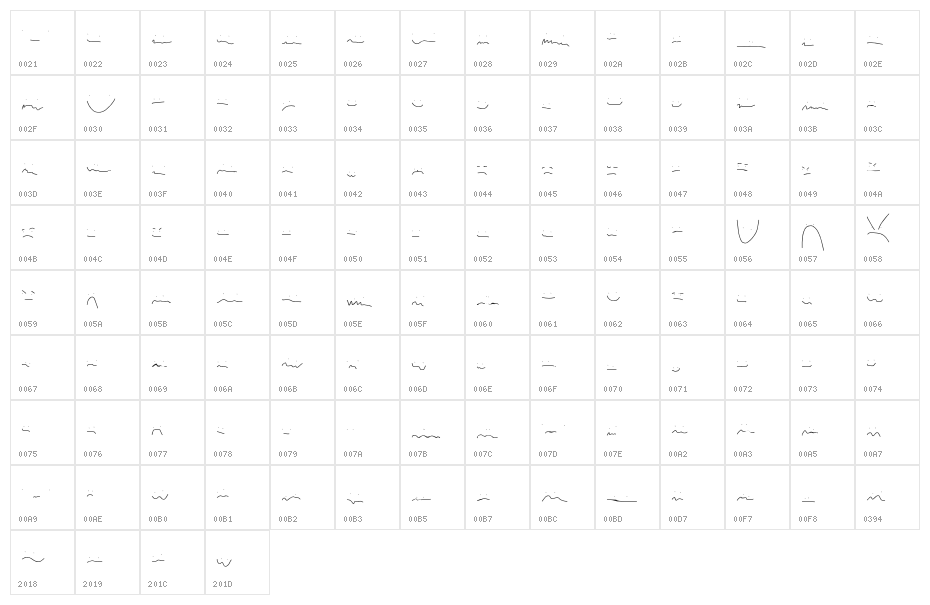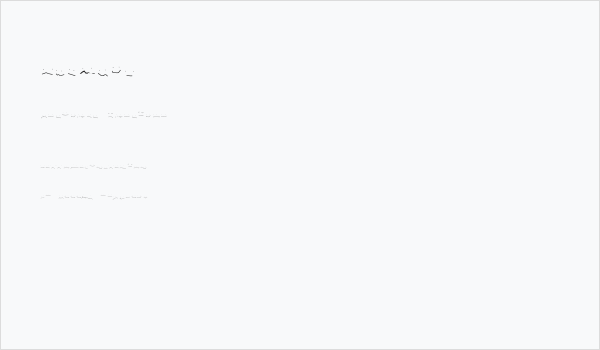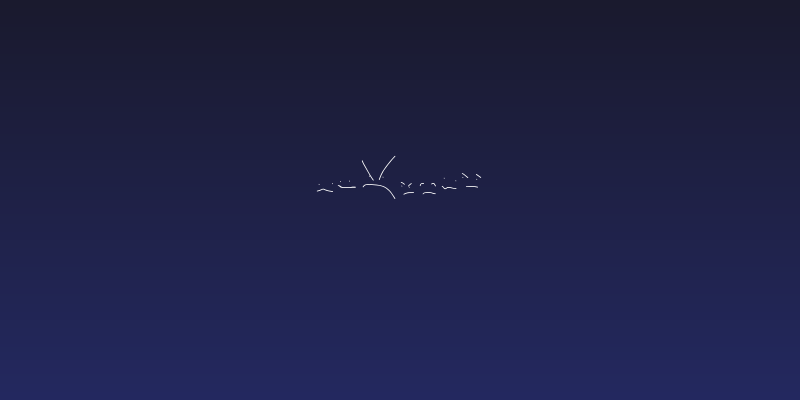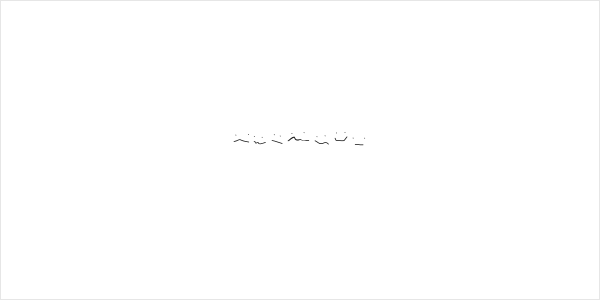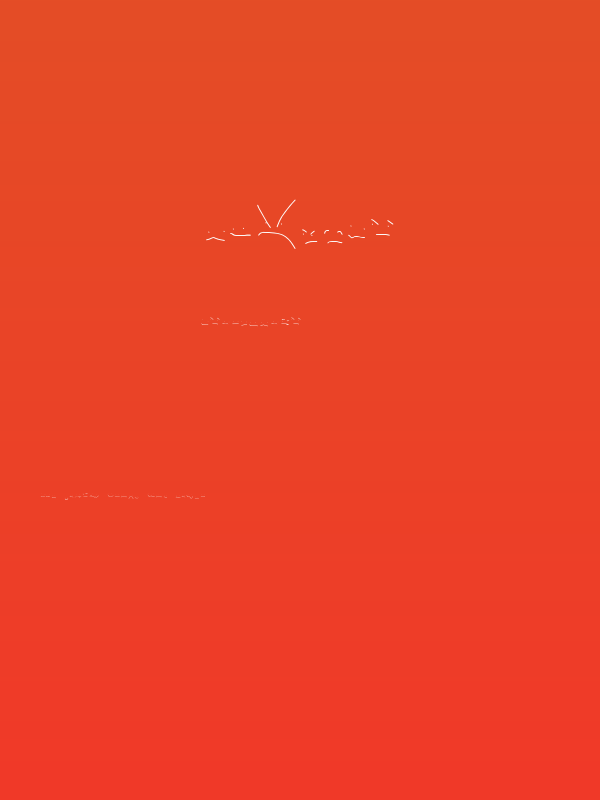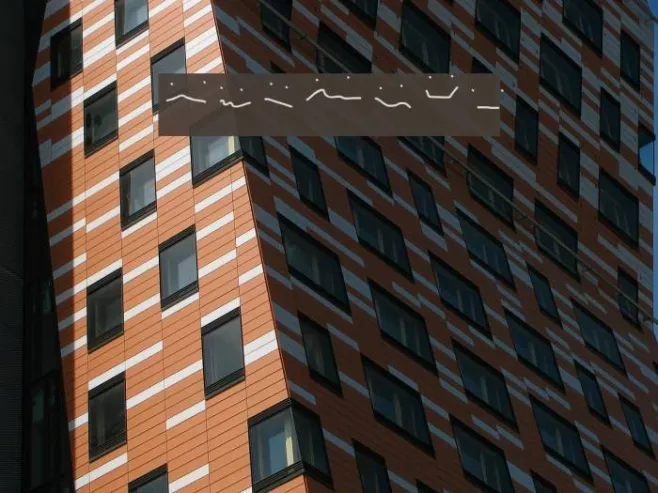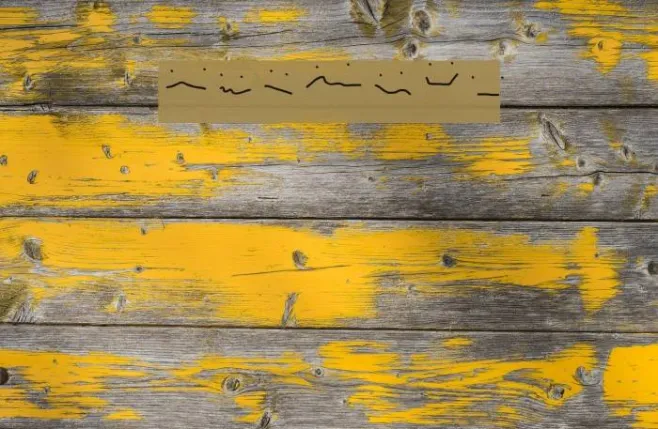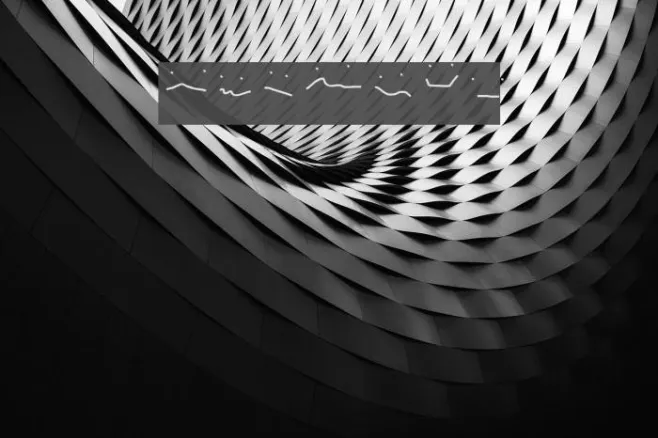
Anxiety Font
Anxiety Description
This is not a valid font. The image appears to contain abstract or decorative elements that do not correspond to a standard alphabet or numerical system. It lacks the typical structure and form of a font, making it unsuitable for standard typographic use.
| Overall Style | Abstract |
| Use Case | Decorative art, Abstract design |
| Proposed Projects | This design could be used for abstract art projects or as a decorative element in graphic design. |